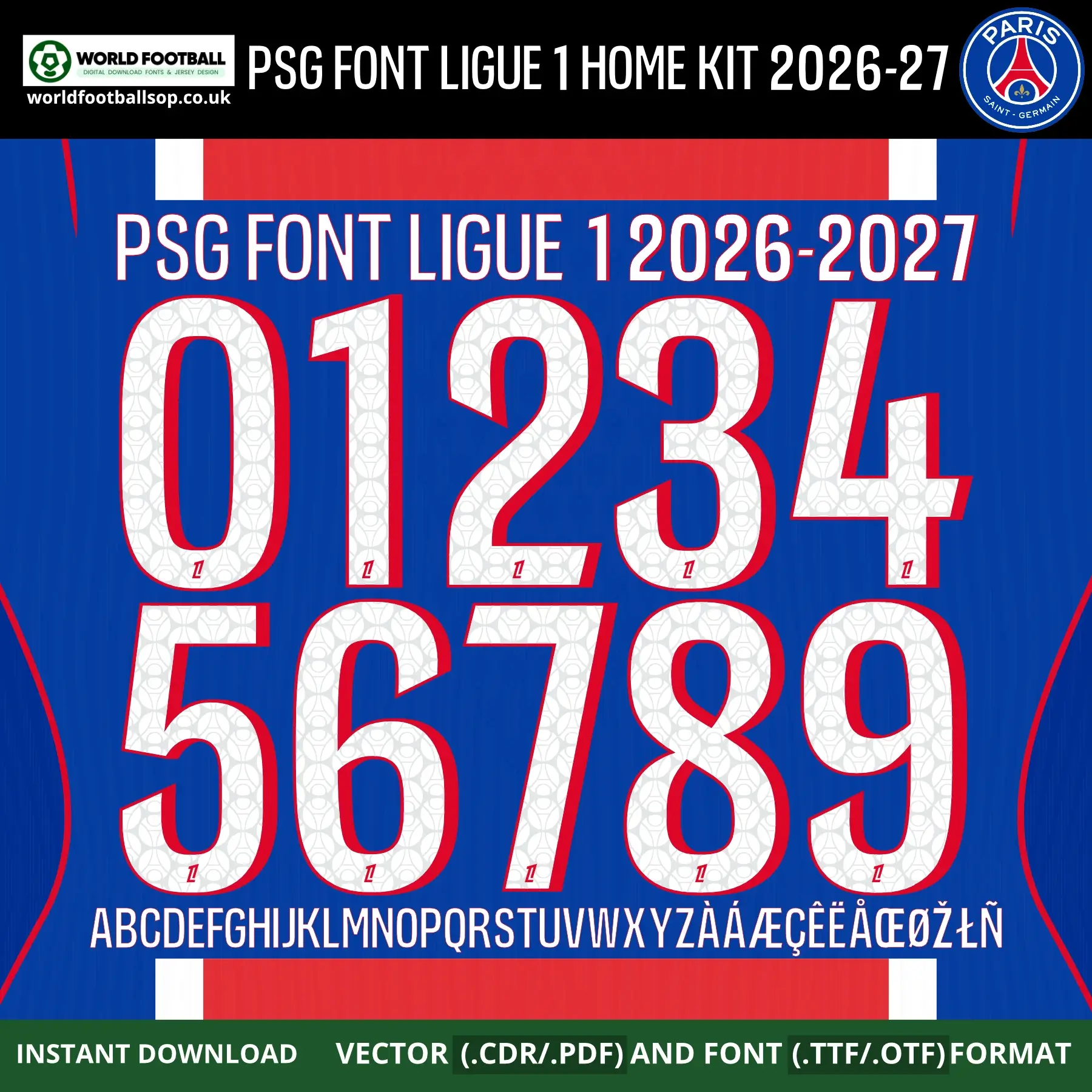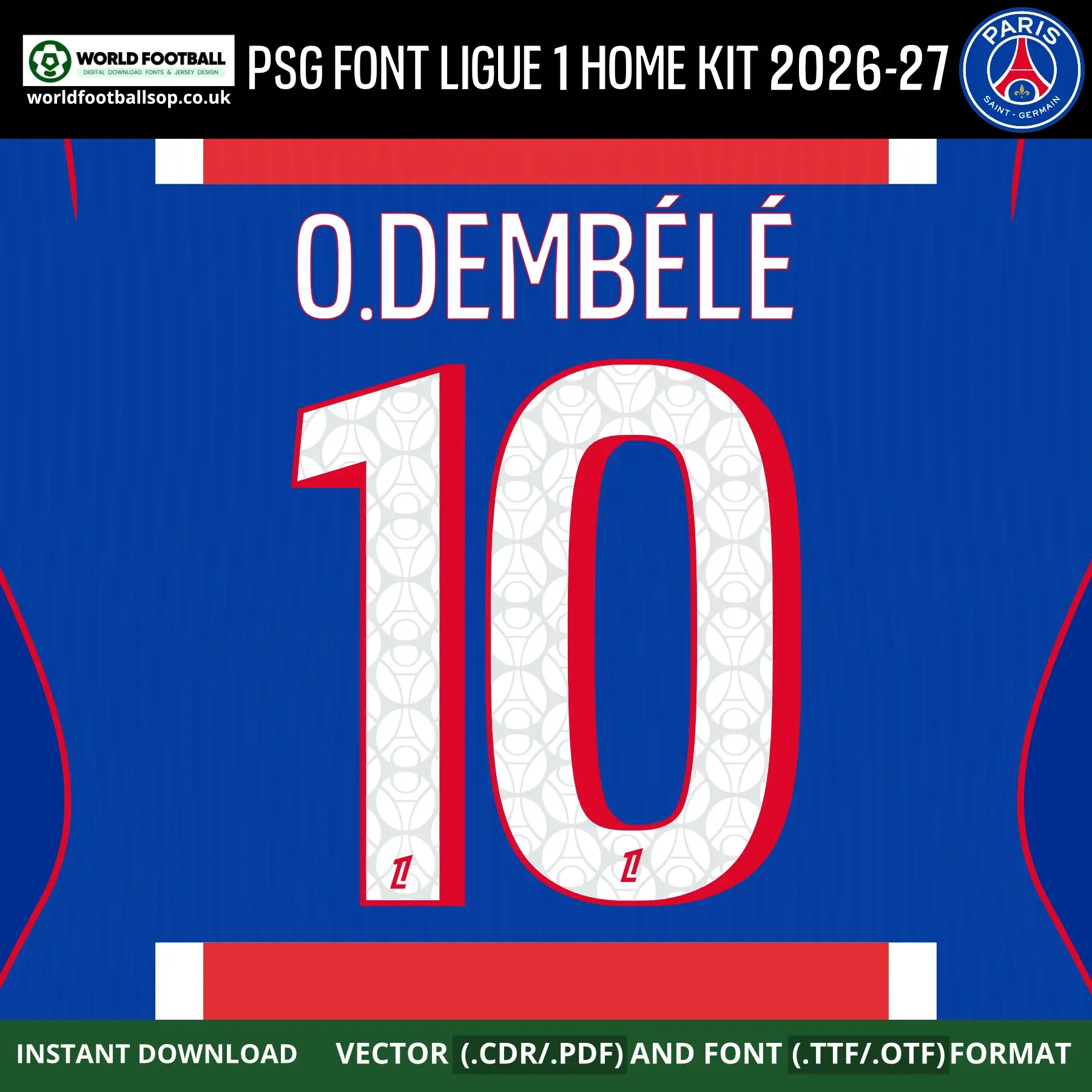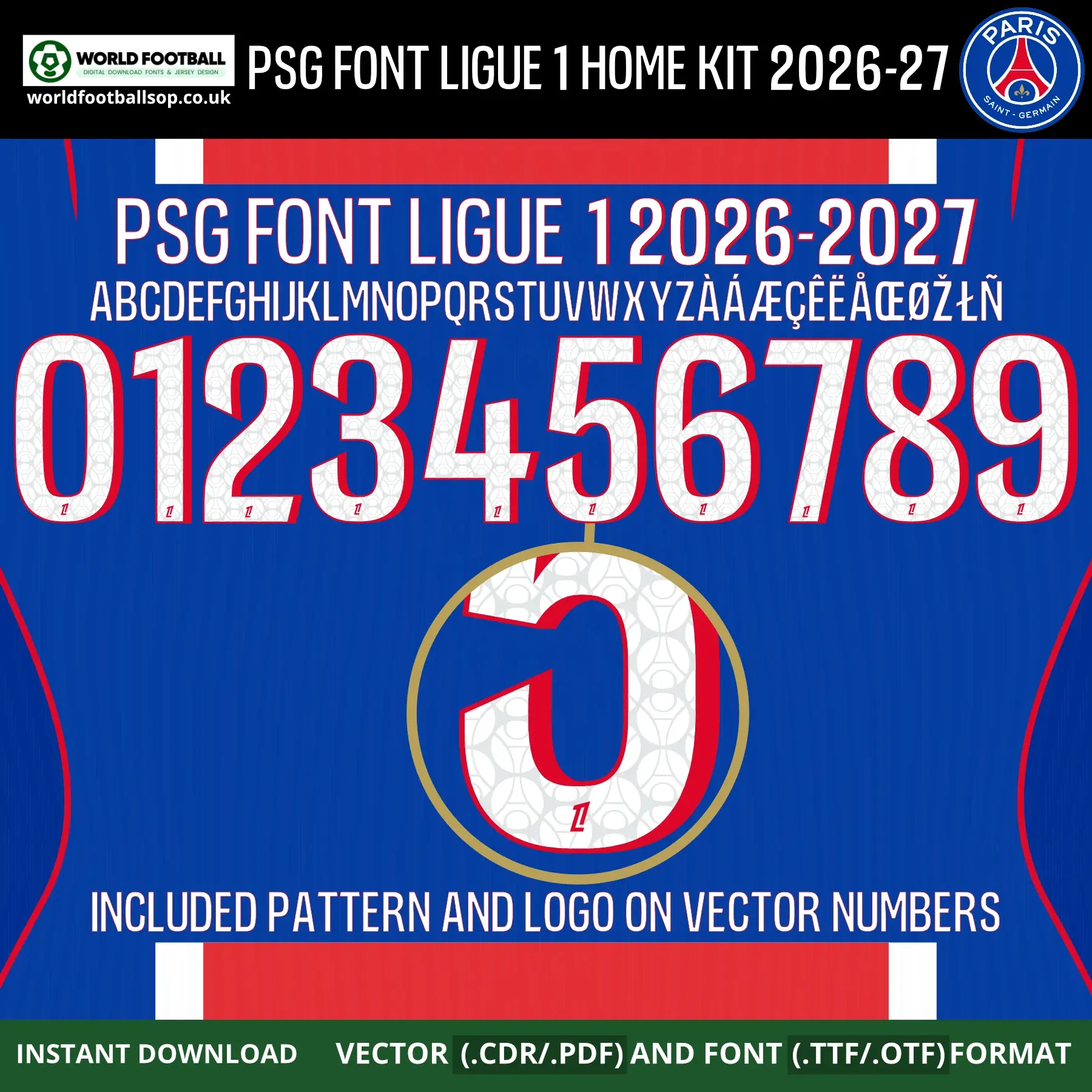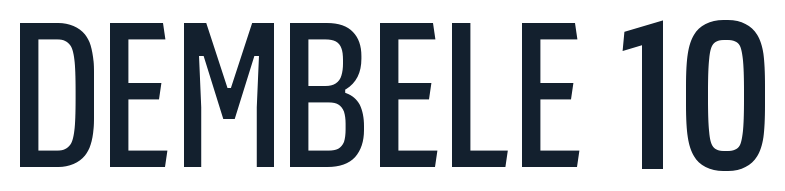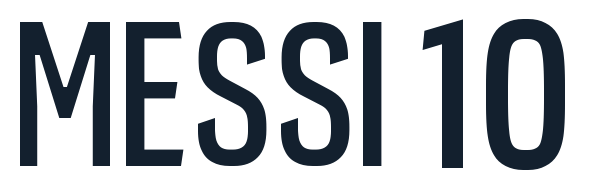
PSG Font Ligue 1 Home Kit 2026-27 – Official‑style Jersey Typography
This PSG Font Ligue 1 Home Kit 2026-27 recreates the bold, rounded lettering used on Paris Saint-Germain’s iconic royal blue home shirts for the 2026-27 Ligue 1 season. The wide, rounded numbers and letters feature a clean white fill with a bold red outer shadow/outline, plus a distinctive geometric Eiffel Tower-inspired hexagonal pattern embossed inside each character – making these numbers instantly recognisable as PSG’s home kit typography at both close range and on-screen. It is perfect for fans, designers and print shops who want authentic‑looking names and numbers on custom PSG home jerseys and football graphics.
The font football is supplied in both desktop formats (TTF/OTF) and scalable vector files so you can work comfortably in your favourite design software. The white numbers with red outline on the vibrant royal blue PSG home kit background seen in the previews mirrors Paris Saint-Germain’s official Ligue 1 home colour palette, making your mockups and prints look match‑ready. Every vector number includes the embedded PSG crest logo and the full interior geometric pattern for maximum authenticity. This is the only PSG Ligue 1 2026-27 font pack that includes both the pattern and the logo directly in vector numbers.
PSG crest logo embedded on every vector number and letter
Full interior geometric hexagonal pattern included on all vector numbers
Full uppercase alphabet A-Z and numbers 0-9 with extended French and international accents (À, Á, Æ, Ç, Ê, Ë, Å, Œ, Ø, Ž, Ł, Ñ)
Preview layouts showing complete number set and example name/number combo – O.DEMBÉLÉ 10
These files are ideal for: custom Namesets PSG Ligue 1 home jerseys and replicas, shirt-number mockups for print shops, social media graphics, posters, YouTube thumbnails and any football‑themed design project. The clean vector outlines ensure sharp results at large sizes for banners or at small sizes for sleeve numbers and mini‑kits.
Ligue 1 accuracy: Inspired by the exclusive PSG Font Ligue 1 Home Kit 2026-27, not a generic typeface
Pattern + logo included: Unique pack with full interior hexagonal geometric pattern AND PSG crest on every vector number – not available in basic font packs
High legibility: Bold rounded white forms with red shadow keep numbers clear on both TV and print designs while maintaining PSG’s iconic blue, white and red identity
Whether you are designing a full squad of custom PSG home shirts or a single fan jersey with your own name and number, this PSG Font Ligue 1 Home Kit 2026-27 gives your project a professional, on‑pitch look.